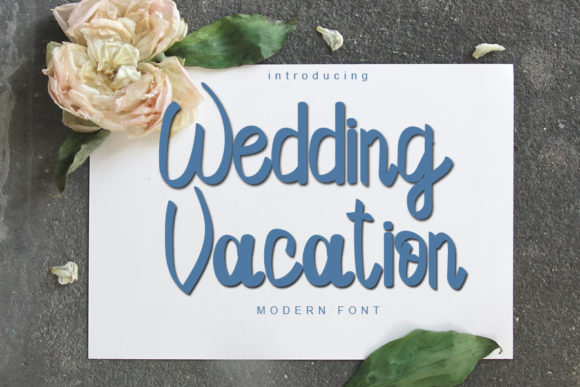
Wedding Vacation Font
Font Name : Wedding Vacation Font
Author : ABBAsalam
**Wedding Vacation - The Perfect Font for Your Dream Wedding**
Are you planning your dream wedding and looking for that special touch that will make your invitations and other wedding materials look absolutely stunning? Look no further than Wedding Vacation, a beautiful script font that will add a touch of elegance and charm to your big day.
**Designed with Love**
Crafted by the talented designer ABBAsalam, Wedding Vacation is a font that oozes romance and sophistication. Its playful characters dance along the baseline, creating a whimsical and inviting effect that is sure to captivate your guests.
**Perfect for Invitations and More**
Whether you're designing invitations, save-the-dates, menus, or any other wedding-related material, Wedding Vacation is the perfect choice. Its versatility and timeless appeal make it suitable for a wide range of styles, from classic and traditional to modern and whimsical.
**Add a Touch of Magic**
With Wedding Vacation, you can transform ordinary words into enchanting works of art. Imagine your guests' delight as they receive your invitations, adorned with this beautiful font. It's sure to create a lasting impression and set the tone for a truly unforgettable celebration.
**Capture the Moment**
Your wedding day is one of the most important days of your life, and you deserve to have everything perfect. Wedding Vacation will help you create cherished memories that you'll treasure for a lifetime.